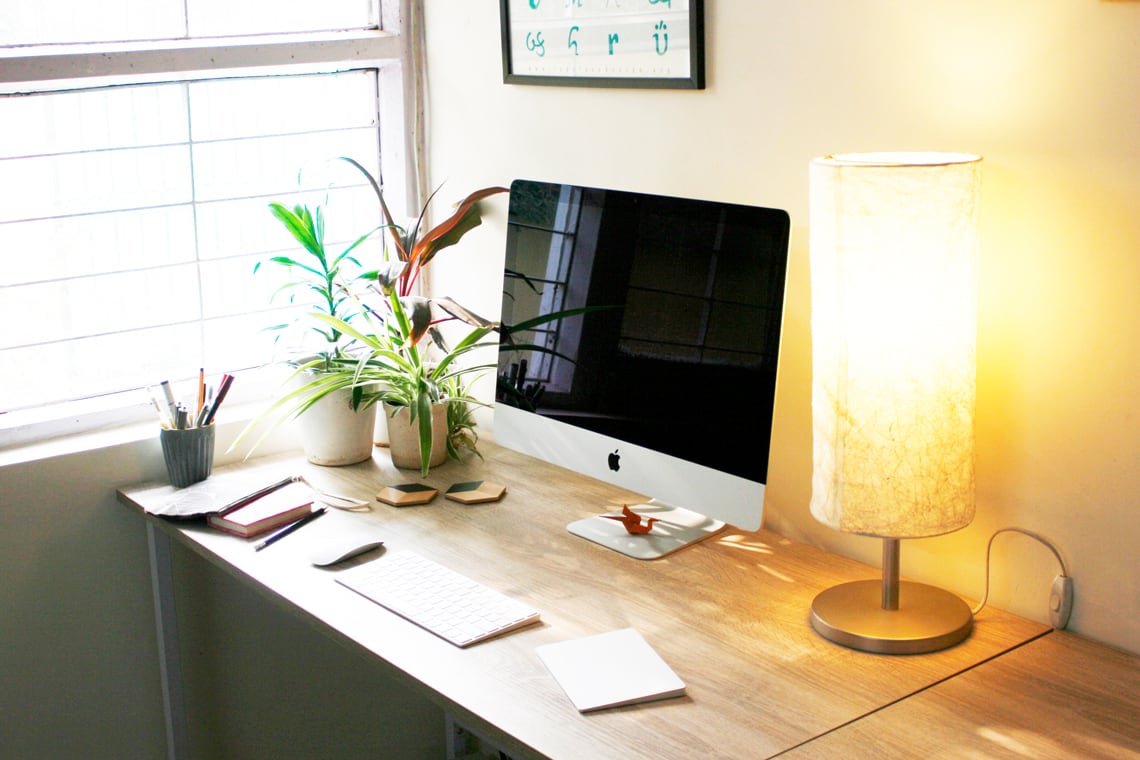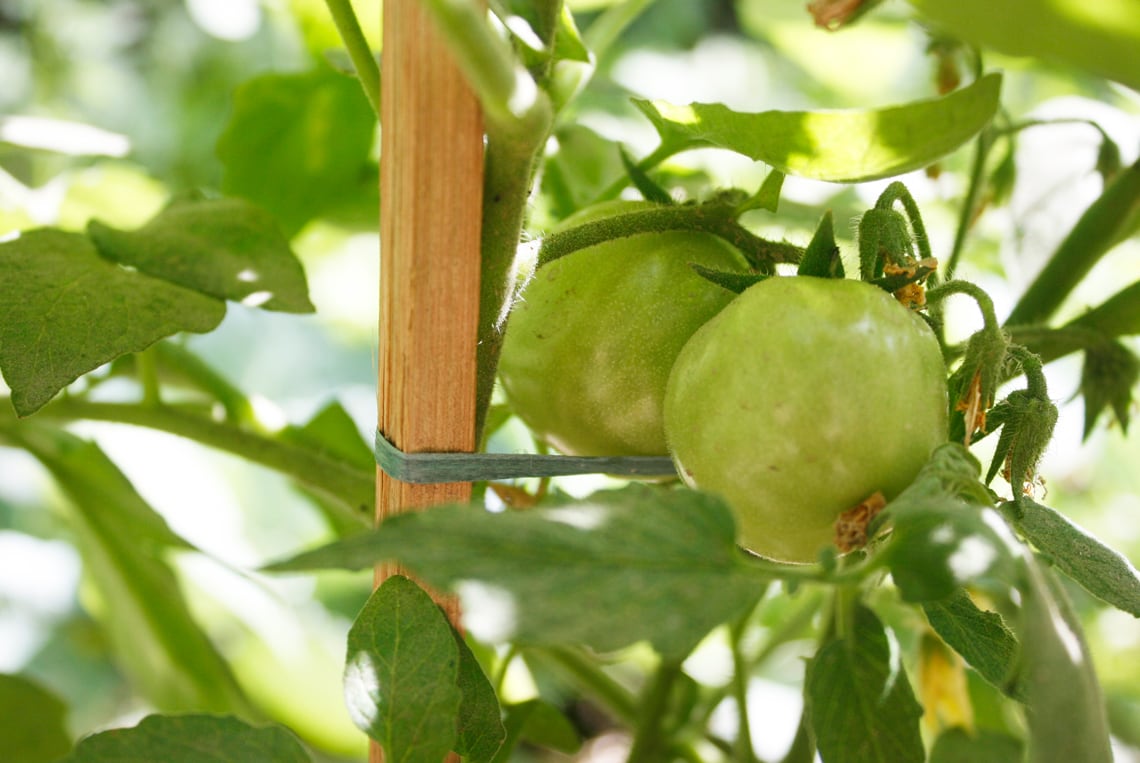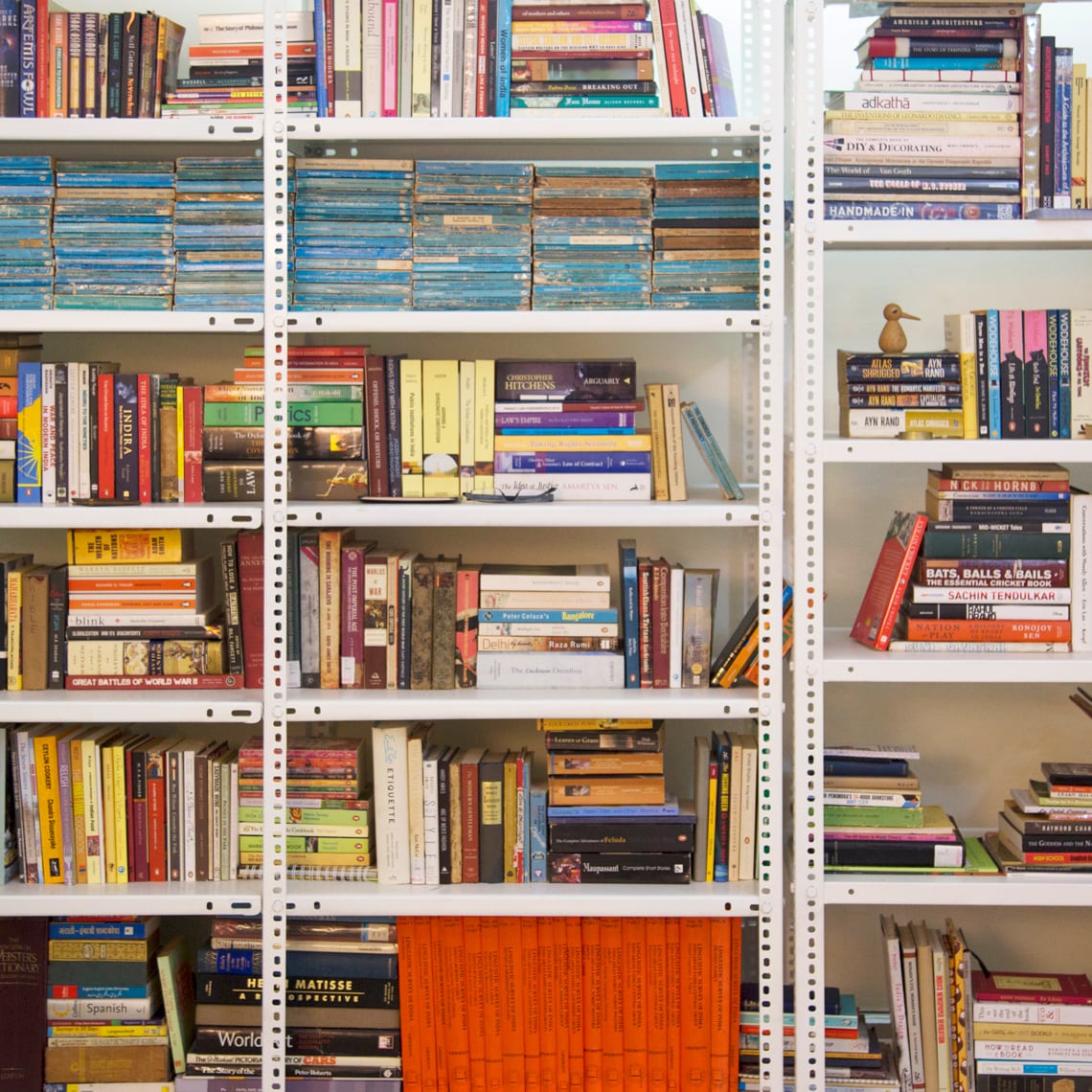
Meet Pooja
From the initial idea to the different marketing options, we have a talented core team that completes the font creation work. We are also supported by a network of great designers and partners who pitch in on singular projects in their area of strength. Though we have short bios on the About page, we decided to do a series of interviews beginning with our core team and working our way outward, starting with the newest addition, Pooja. The coming months will see more interviews published, so be on the lookout.
Though TypeTogether has always worked with an extensive team of designers and freelancers, it wasn’t until 2013 that Veronika Burian and José Scaglione took a step forward to make the company’s core group a five-person team. Since then we have continued to expand our workforce as our needs demanded, working as a remote company with teammates the world over.
We may be separated by time, location, and climate, but we are intentional about designing the highest calibre type families for the world’s major languages. From Argentina and America to England, India, and China, you’ll find a TypeTogether colleague working at almost every hour around the clock.
Year after year our catalogue has grown in quantity and in complexity, meaning with more scripts, more language complexity, and larger families. We hit another milestone in 2016 when we launched a new website that better fits our needs, that presents our work in a more competitive way, and also allows us to show some behind-the-scenes images.
POOJA SAXENA
Pooja Saxena is the most recent member of the TypeTogether team, joining in May 2017. As a New Delhi native, she designs Indic scripts such as Bengali and Devanagari. One of her most prized possessions is a collection of 300 or 400 newspapers (it’s hard to count!) from all over the world — a deep resource of scripts and languages. When she is not designing type, taking pictures of public lettering, or reading hundreds of books each year, you might find Pooja baking, cooking, and barbecuing (her new favourite pastime) in her garden.
Pooje Saxena, typeface designer at TypeTogether
1 · Where is your office located?
I am originally from a suburb of New Delhi called Noida. I moved back last year after some years of being away, so my office is located in my home there.
2 · In what countries or cities have you lived?
I have lived in Noida, New Delhi, Bangalore, and Hyderabad in India, in Reading in the UK, and in Sunnyvale and Cupertino in the US.
3 · What kind of music do you listen to, if you do, when working?
I usually don’t listen to music while working. Instead I mostly listen to podcasts and audio books. Stephen Fry’s Harry Potter renditions are a favourite, as are the old BBC Asimov books. Other times, I will stream a TV show or movie to run in the background.
5 · What are your love/hate glyphs when designing fonts?
I have a very serious love-hate relationship with drawing the Devanagari letter क.
7 · What is your hobby when not designing fonts?
I love to spend time in my garden. Even though I know that plants take a long time to grow and an even longer time to fruit and flower, I like to see how far along they are every day. I also love to cook for myself and for my friends and family, who I entertain often. My house is full of books and design books make up only a fraction. I am an obsessive reader — last year I read 100 books, not counting what I read for work. I also collect stamps and newspapers from around the world.
8 · You have one opportunity to do something different in your life. What do you choose?
I would study mathematics instead of studying design. Maybe become a statistician?
9 · What is your favourite word?
I don’t know about English, but my favourite word in Hindi is किंकर्तव्यविमूढ़ (kinkartavyavimūrh, in case you want to try it!). It means bewildered, and both its length and spelling make it pretty bewildering itself.
10 · What is the most amazing script you have worked with and why?
A couple of years ago, I designed a typeface in the Ol Chiki script. It is a minority script in India, which looked nothing like what I had worked with before. It was created less than 100 years ago and its invented shapes have a lot of flipping vertically and horizontally. That made it super hard to learn and recognise the letters.
Pooja’s workspace in Noida.
A detail of her garden.
And of course her bookshelf.